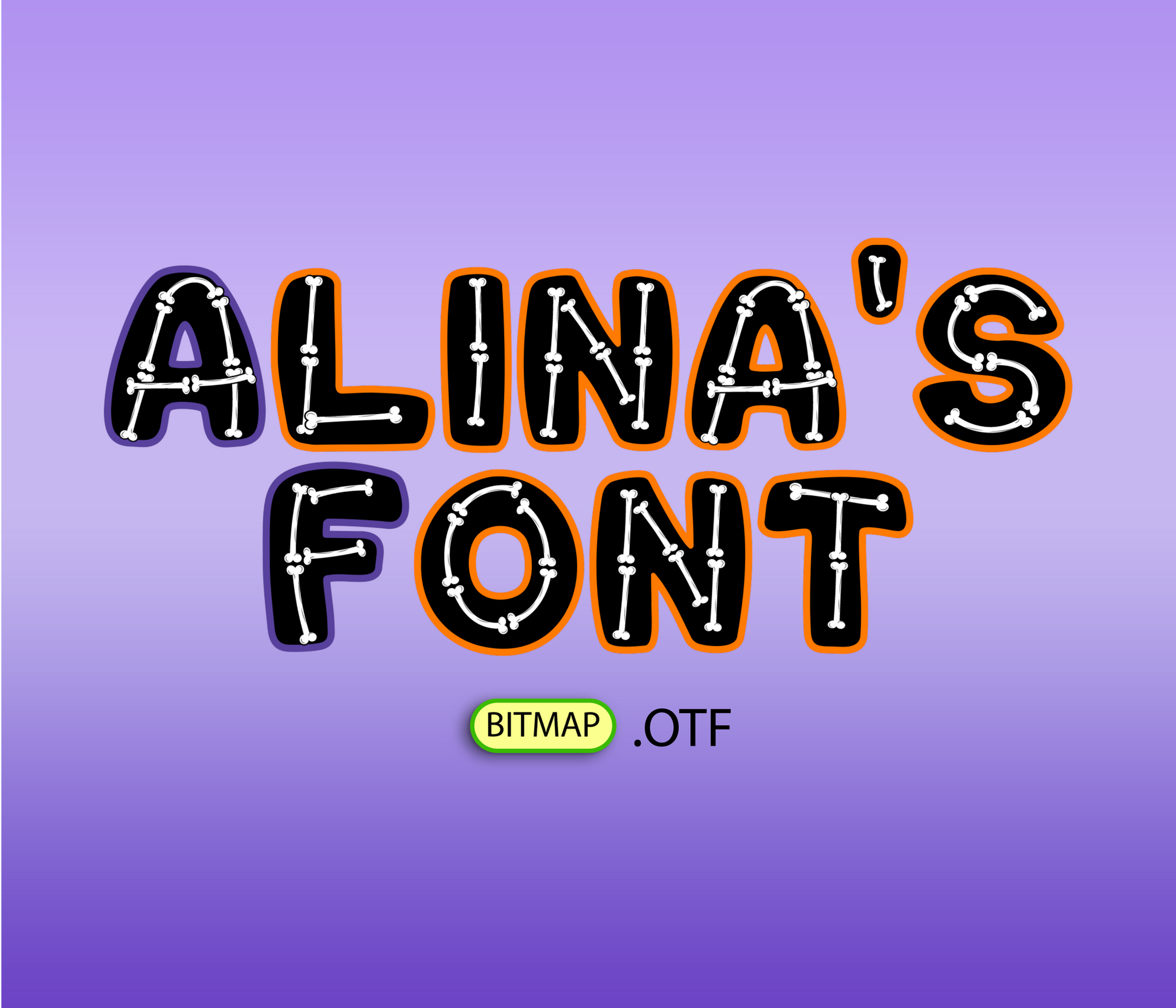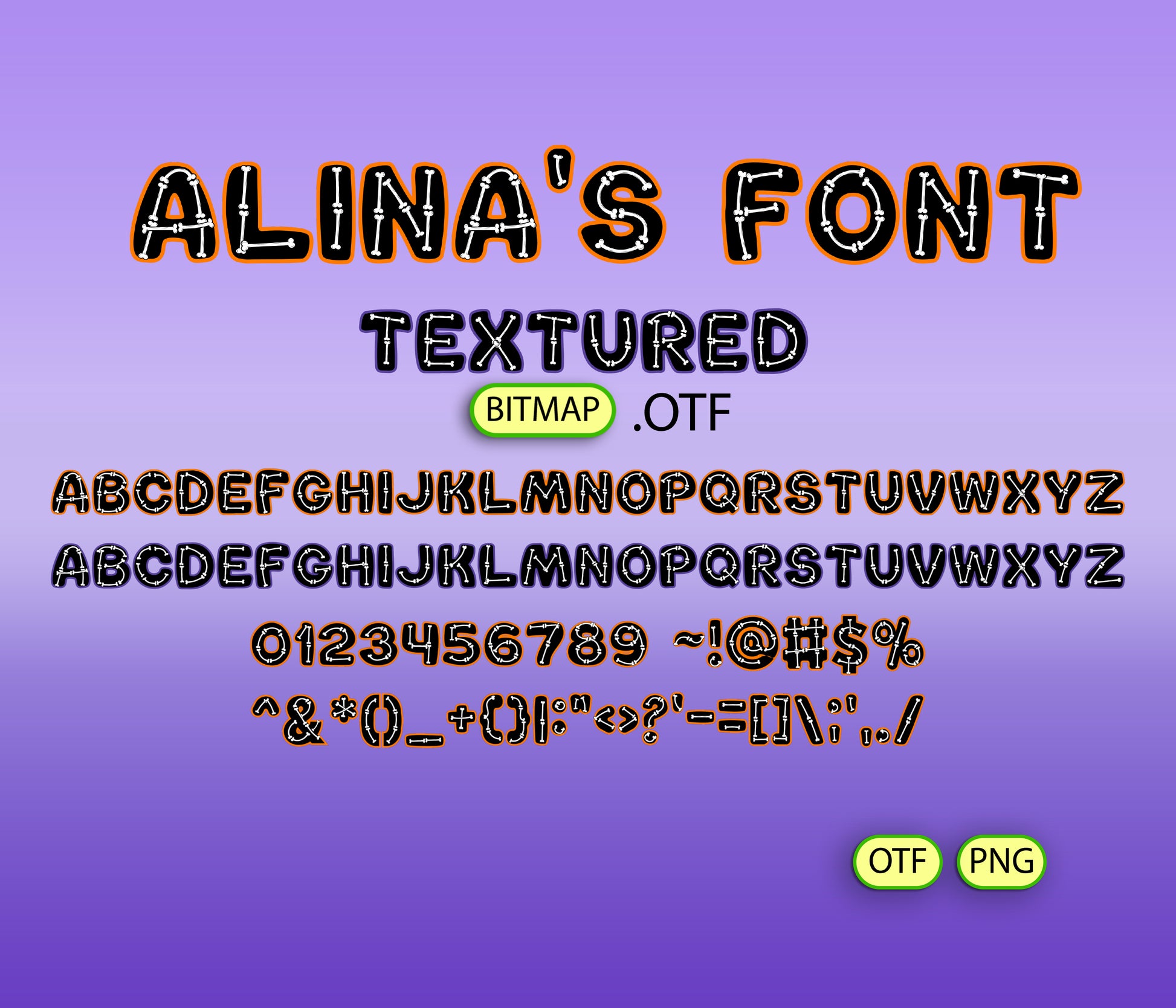
Halloween Bone Walkers Font Textured Ghostly Remains
Step into the chilling world of undead apparitions with our Halloween Bone Walkers font, capturing the essence of spectral horror and rattling fear. Perfect for cemetery events, ghost house designers, supernatural content creators, and creative professionals, this font brings the haunting, clattering spirit of skeletal phantoms to your projects. Create terrifying invitations, ghost-themed merchandise, or digital content with the otherworldly, bone-dry energy of ultimate phantom scares.
Our Halloween Bone Walkers font features jagged, skeletal shapes and bold characters reflecting the ghostly yet terrifying aesthetic of haunted graveyard scenarios. Ideal for: